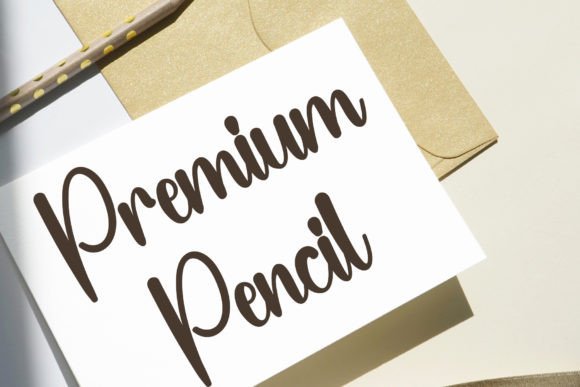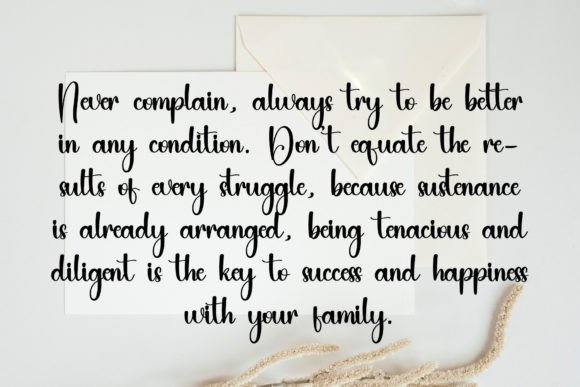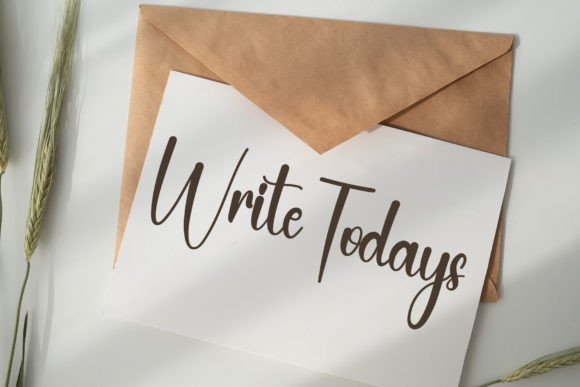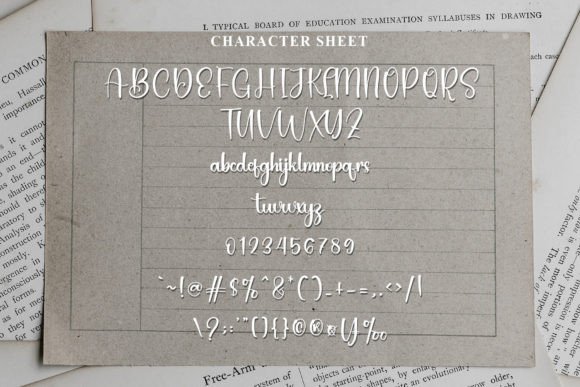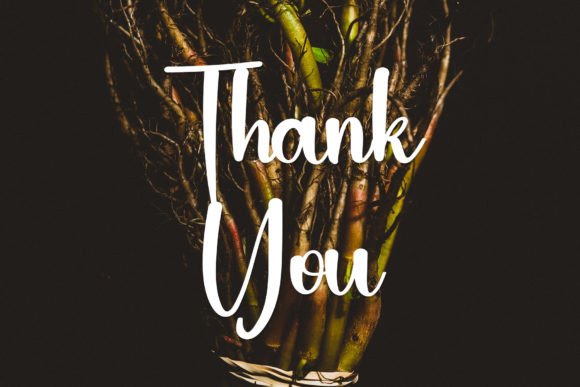
Bundles Font: Elevate Your Designs with Elegance and Class
In the world of typography, a font can make or break a design project. For designers and crafters looking to add a touch of sophistication and elegance to their work, Bundles Font is an excellent choice. This trendy handwritten font boasts a contemporary atmosphere and impeccable form, inspired by timeless classic calligraphy.
What is Bundles Font?
Bundles Font is a modern, handwritten typeface that exudes refinement and luxury. Its unique blend of classic calligraphy and modern sensibilities makes it an ideal choice for designers seeking to create stunning visual content. With its elegant lines, flowing curves, and precise lettering, Bundles Font is perfect for adding a touch of sophistication to any design project.
Key Features of Bundles Font
• Trendy and Contemporary: Bundles Font features a modern, trendy design that will elevate your designs and make them stand out from the crowd.
• Inspired by Classic Calligraphy: This font draws inspiration from timeless classic calligraphy, giving it an air of elegance and refinement.
• Impeccable Form: Bundles Font boasts precise lettering and flowing curves, ensuring that your designs look polished and professional.
• Handwritten Style: The font’s handwritten style adds a personal touch to your designs, making them more approachable and engaging.
Uses of Bundles Font
Bundles Font is versatile and can be used in a variety of design projects, including:
• Logos and Branding: Create a lasting impression with a custom logo or brand identity that exudes elegance and sophistication.
• Wedding and Event Invitations: Add a touch of luxury and refinement to your wedding or event invitations with Bundles Font.
• Packaging Design: Elevate your packaging design with a font that conveys high-end quality and sophistication.
• Digital and Print Media: Use Bundles Font in your digital and print media, such as brochures, flyers, and social media graphics, to create a cohesive and professional brand image.
Why Choose Bundles Font?
With so many fonts available, why choose Bundles Font? Here are a few compelling reasons:
• Unique and Exclusive: Bundles Font offers a distinctive and exclusive design that will set your work apart from others.
• Elegant and Refined: This font’s elegant lines and refined features make it perfect for designers seeking to create sophisticated and high-end designs.
• Easy to Read: Despite its elegant design, Bundles Font remains easy to read, making it suitable for body text and headlines.
• Highly Versatile: Bundles Font can be used in a wide range of design projects, from logos and branding to packaging and digital media.
Tips for Using Bundles Font
To get the most out of Bundles Font, here are a few tips:
• Pair with Neutral Colors: Pair Bundles Font with neutral colors, such as black, white, or gray, to create a clean and sophisticated design.
• Experiment with Font Sizes: Experiment with different font sizes to create visual hierarchy and add emphasis to your design.
• Add Texture and Patterns: Add texture and patterns to your design to create depth and interest.
• Keep it Simple: Don’t overcomplicate your design. Keep it simple and elegant to let Bundles Font shine.
Bundles Font is an exceptional choice for designers and crafters seeking to add elegance and class to their design projects. With its trendy and contemporary design, impeccable form, and inspired classic calligraphy, this font is sure to elevate your work and make it stand out. Whether you’re creating logos, branding, or packaging design, Bundles Font is the perfect choice for those who value sophistication and refinement.